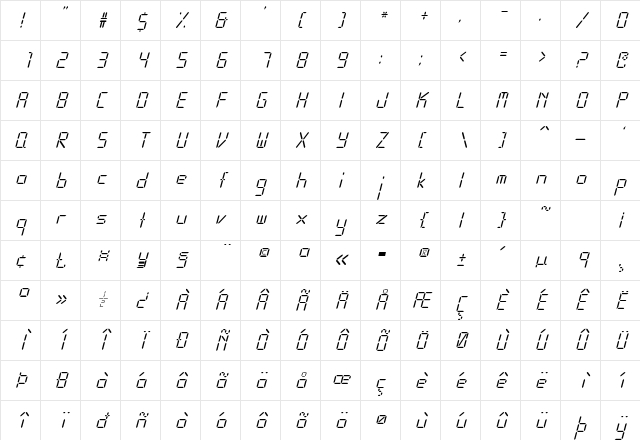
Complete Calculator Italic glyph index. Displaying only characters natively supported by Calculator Italic font.
Calculator is a composed and adaptable typeface that performs quietly and consistently across a wide range of design contexts. The slanted form adds forward momentum and visual energy.
Pro Tip: Use Calculator for emphasis, pull quotes, and subheadings where its slanted energy can add rhythm to the layout.